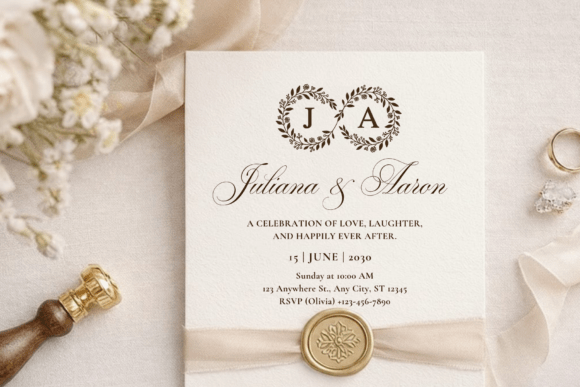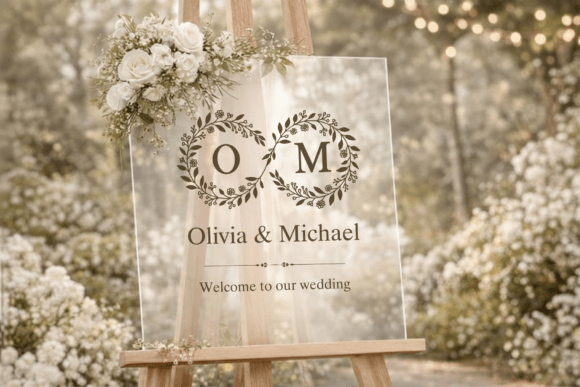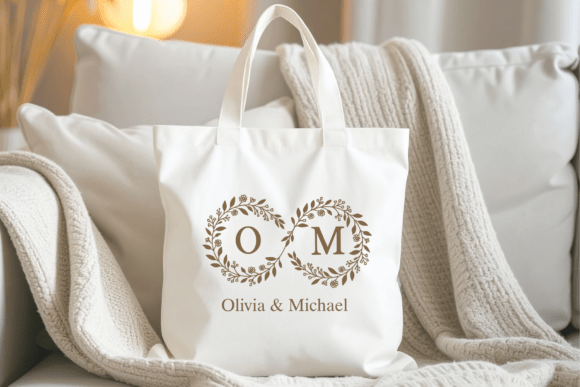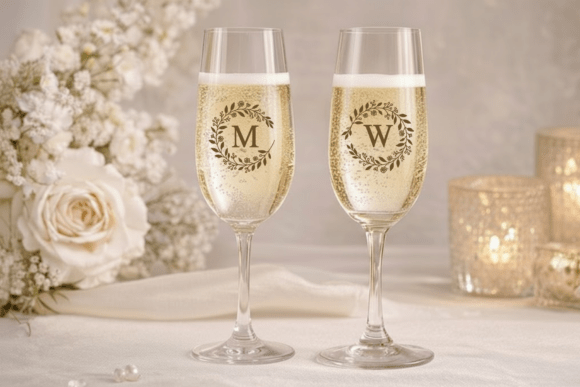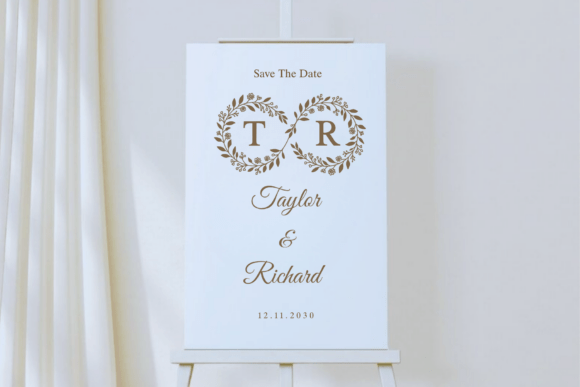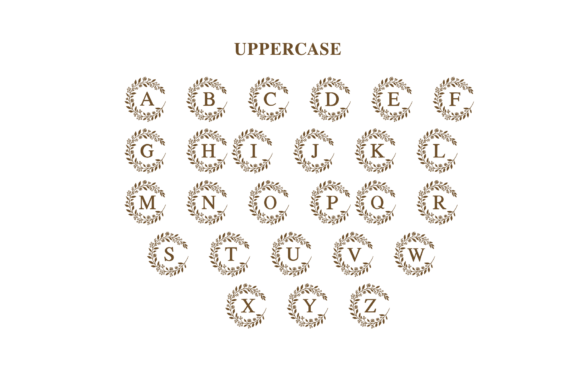
Introducing the Boho Floral Monogram Font: Elevate Your Designs with a Touch of Bohemian Elegance
Are you a designer or crafter looking for a unique and captivating font to add a touch of bohemian charm to your creative projects? Look no further than the Boho Floral Monogram Font. This stunning decorative alphabet features hand-drawn floral wreath frames in a soft, romantic style that’s perfect for a variety of applications, from wedding invitations to logos, branding, and personalized gifts.
What is the Boho Floral Monogram Font?
The Boho Floral Monogram Font is a beautiful, hand-crafted monogram font that embodies the free-spirited, eclectic vibe of the bohemian style. Each letter is carefully designed with a delicate floral wreath frame, adding a touch of natural elegance and sophistication to your designs. The font’s soft, whimsical feel makes it perfect for creating romantic and feminine designs that are sure to captivate your audience.
Perfect for a Variety of Creative Projects
The Boho Floral Monogram Font is incredibly versatile and can be used for a wide range of creative projects, including:
- Wedding Invitations: Add a touch of romance and whimsy to your wedding invitations, save-the-dates, and thank-you cards with this beautiful monogram font.
- Logos and Branding: Create a unique and memorable brand identity with the Boho Floral Monogram Font, perfect for businesses and entrepreneurs in the wedding, lifestyle, and beauty industries.
- Stickers and Decals: Use the font to create custom stickers and decals for laptops, water bottles, and other personal items.
- Cards and Stationery: Add a touch of bohemian charm to your greeting cards, journals, and stationery with this beautiful monogram font.
- Personalized Gifts: Create one-of-a-kind, personalized gifts, such as monogrammed tote bags, pillows, and wall art, with the Boho Floral Monogram Font.
Key Features of the Boho Floral Monogram Font
The Boho Floral Monogram Font offers a range of features that make it a standout choice for designers and crafters, including:
- Hand-drawn design: Each letter is carefully hand-drawn, ensuring a unique and organic feel.
- Floral wreath frames: Delicate floral wreath frames add a touch of natural elegance to each letter.
- Soft bohemian style: The font’s soft, whimsical feel embodies the free-spirited, eclectic vibe of the bohemian style.
- Elegant and romantic: The Boho Floral Monogram Font adds a touch of sophistication and romance to your designs.
- Natural, rustic, and timeless: The font’s natural, rustic feel ensures it will remain timeless and stylish for years to come.
Why Choose the Boho Floral Monogram Font?
With so many fonts available, why choose the Boho Floral Monogram Font? Here are just a few reasons:
- Unique and eye-catching: The Boho Floral Monogram Font is sure to grab attention and set your designs apart.
- Versatile: The font can be used for a wide range of creative projects, from wedding invitations to logos and branding.
- Elegant and sophisticated: The font’s elegant, romantic feel adds a touch of sophistication to your designs.
The Boho Floral Monogram Font is a stunning, hand-crafted monogram font that’s perfect for designers and crafters looking to add a touch of bohemian elegance to their creative projects. With its delicate floral wreath frames, soft bohemian style, and elegant, romantic feel, this font is sure to captivate your audience and set your designs apart. Whether you’re creating wedding invitations, logos, branding, or personalized gifts, the Boho Floral Monogram Font is the perfect choice.